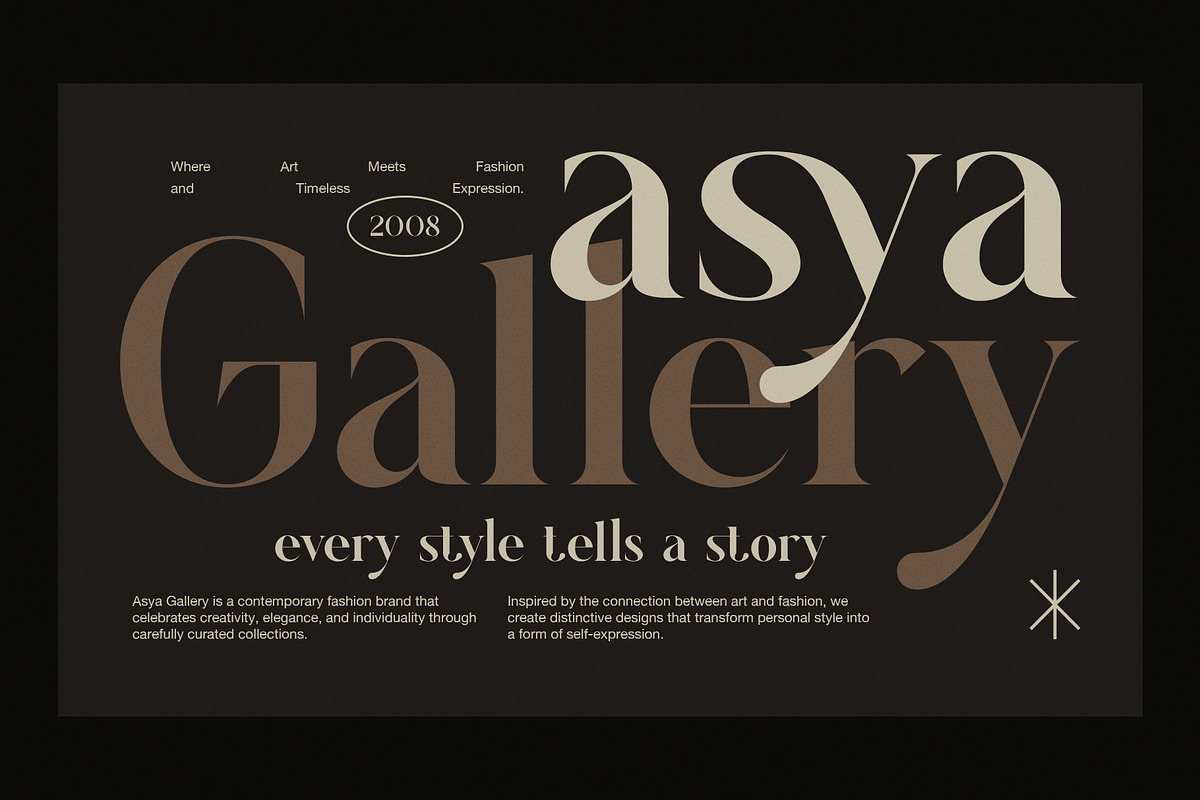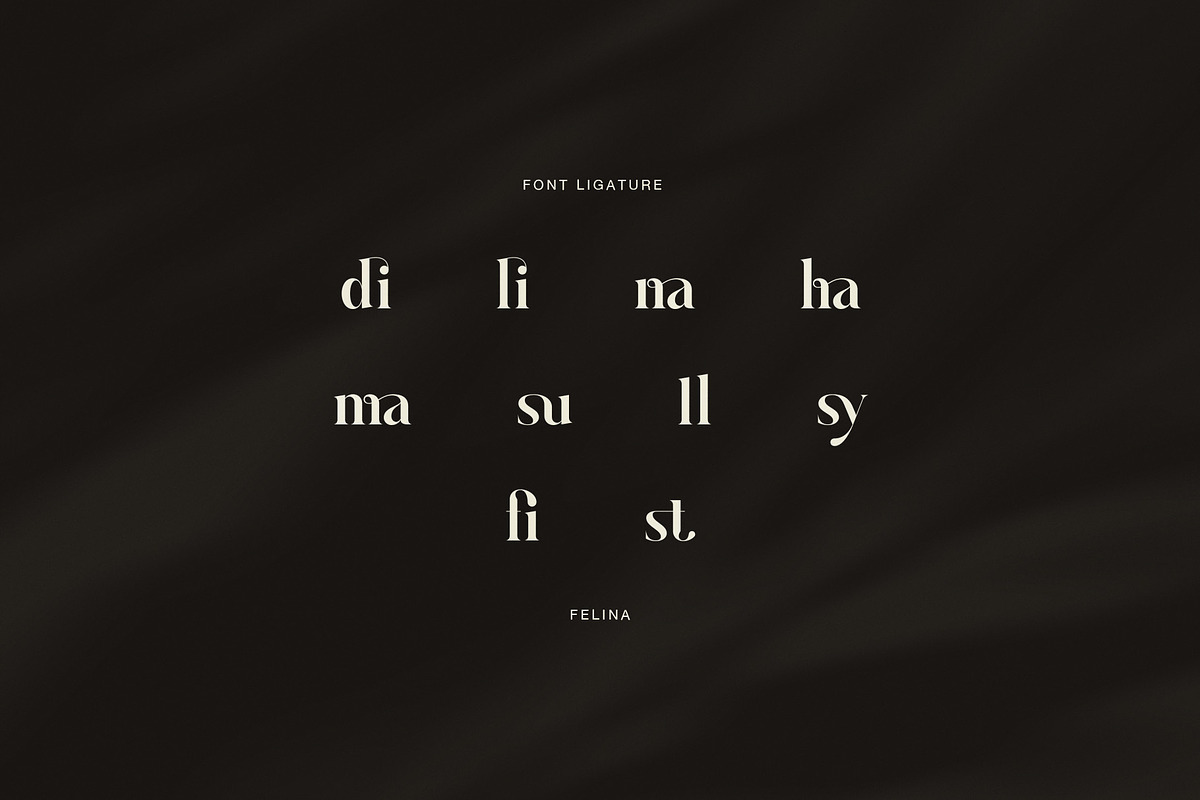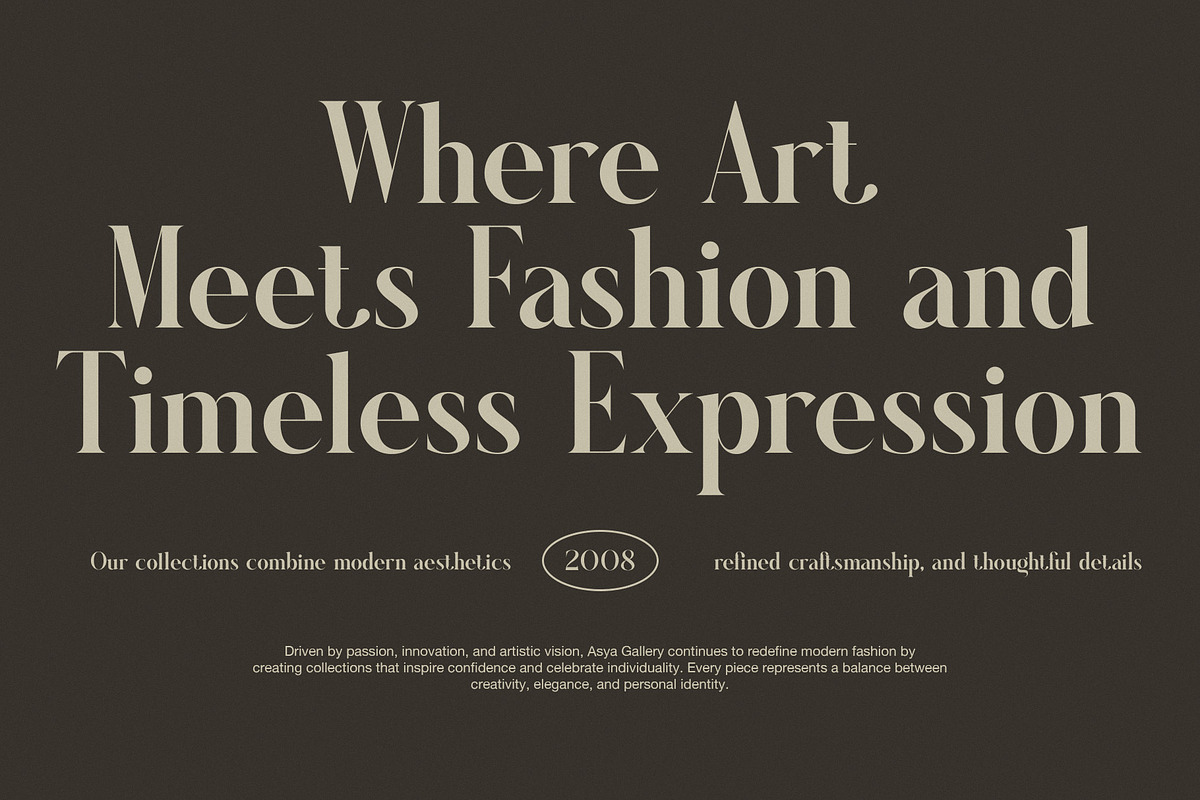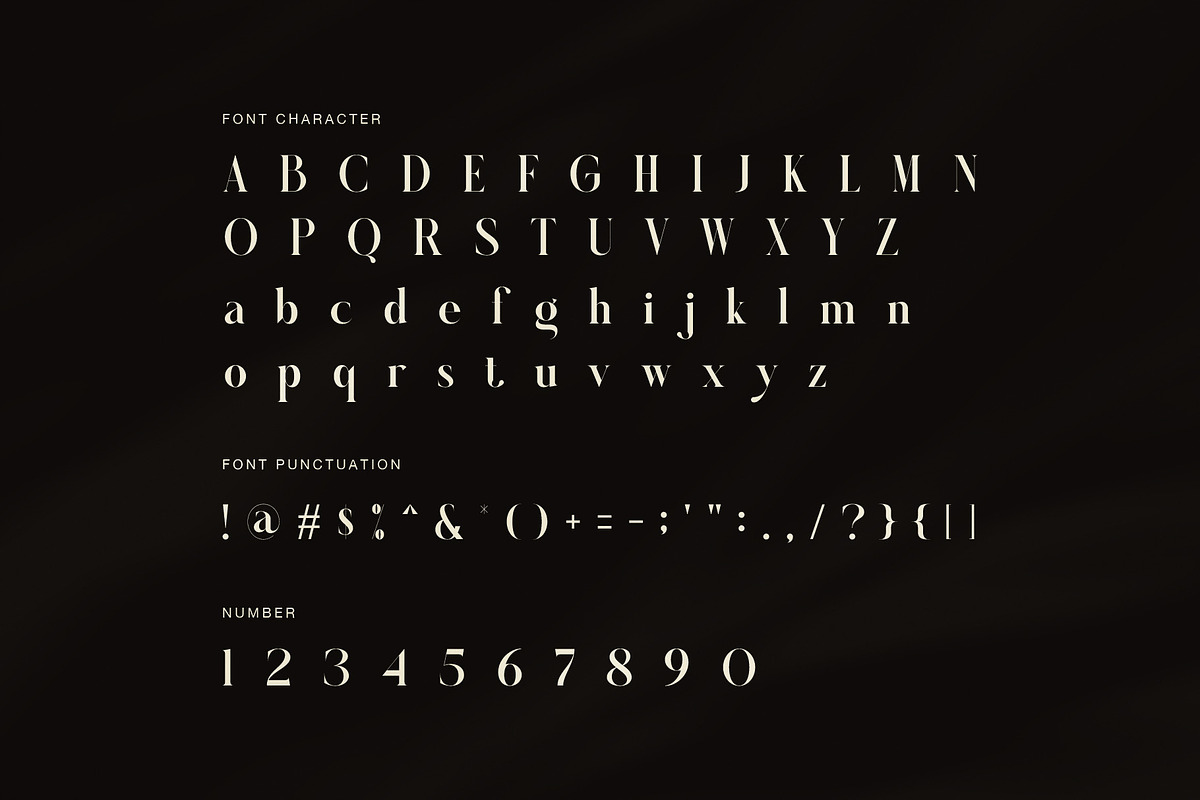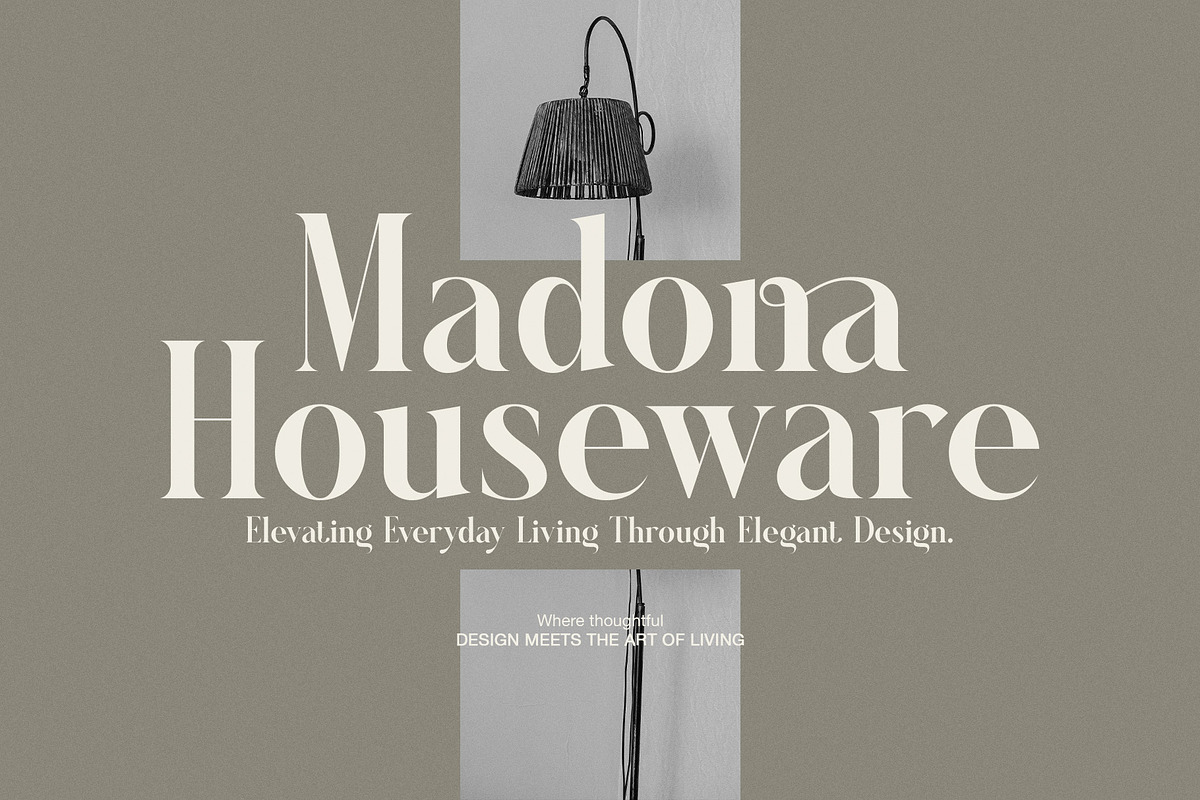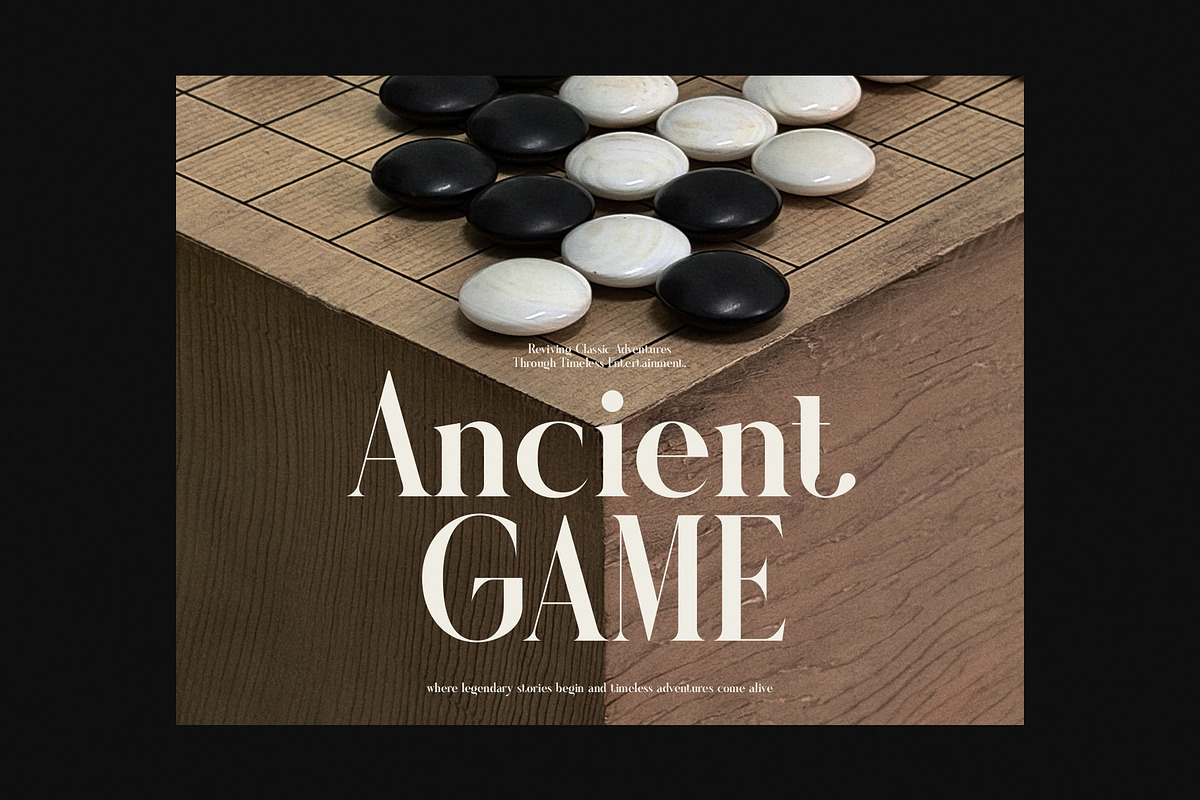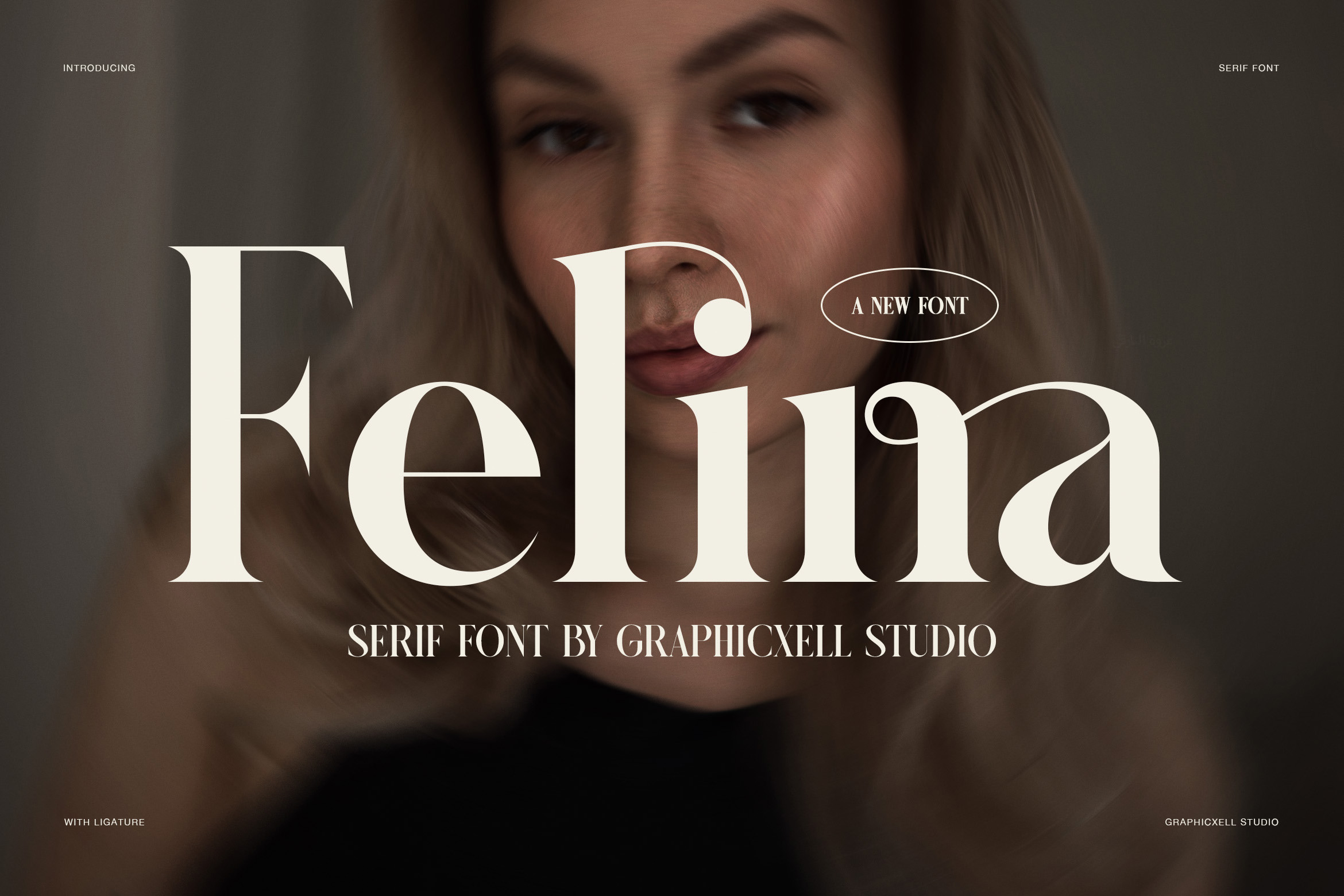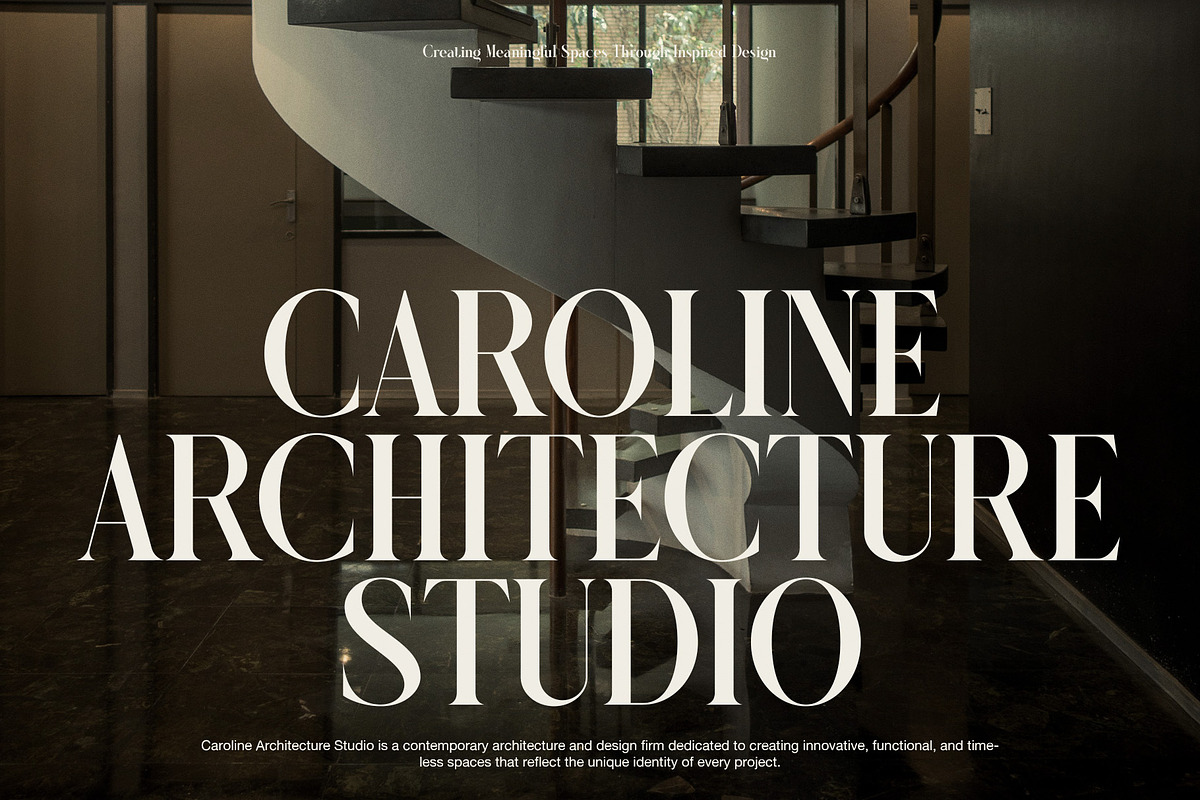
Felina Elegant Serif Font
Felina is an elegant high-contrast serif font made for brands, editorials, and creative projects that need a refined and fashion-led look. With sharp, thin hairlines and bold vertical strokes, this modern serif font creates a strong visual rhythm while keeping each word graceful and easy to notice.
Inspired by luxury typography and contemporary editorial design, Felina brings a polished character to both large headlines and stylish supporting text. As a result, the font feels sophisticated without becoming too formal. Its strong contrast gives every letter a dramatic shape, while carefully drawn curves add warmth and balance.
Felina works especially well for:
Fashion and beauty branding
Luxury logos and visual identities
Editorial layouts and magazines
Wedding invitations and stationery
Boutique packaging and product labels
Social media graphics and campaigns
Posters, covers, and art direction
One of Felina's key strengths is its versatility in visual composition. The tall uppercase letters create an impressive presence in large headlines, while the elegant lowercase forms provide a smoother and more graceful reading flow. This balance allows designers to use Felina for both bold statements and more delicate typography.
The uppercase characters are tall, slender, and expressive, making them ideal for luxury titles, fashion campaigns, and premium brand identities. Meanwhile, the lowercase characters offer a softer appearance for captions, short descriptions, and editorial copy. Numbers and punctuation are also included, allowing Felina to work across a variety of design projects.
Because of its strong contrast, Felina looks best when typography is given room to breathe. For example, use it in large display sizes, pair it with a simple sans serif, or place it over refined photography for a modern magazine feel. In addition, its distinctive letter shapes make it a natural choice for beauty brands, architecture studios, interior design, lifestyle projects, and high-end packaging.
Furthermore, Felina adapts beautifully to both minimal and expressive layouts. Its elegant proportions can create a clean luxury look, while its dramatic strokes can add impact to more artistic compositions. This flexibility makes it useful for designers working across print, digital media, branding, and advertising.
Overall, Felina is a versatile display serif font for designers who want timeless elegance with a modern edge. Whether you are creating a logo, campaign, invitation, website, packaging design, or editorial spread, Felina helps build a memorable and sophisticated visual identity.